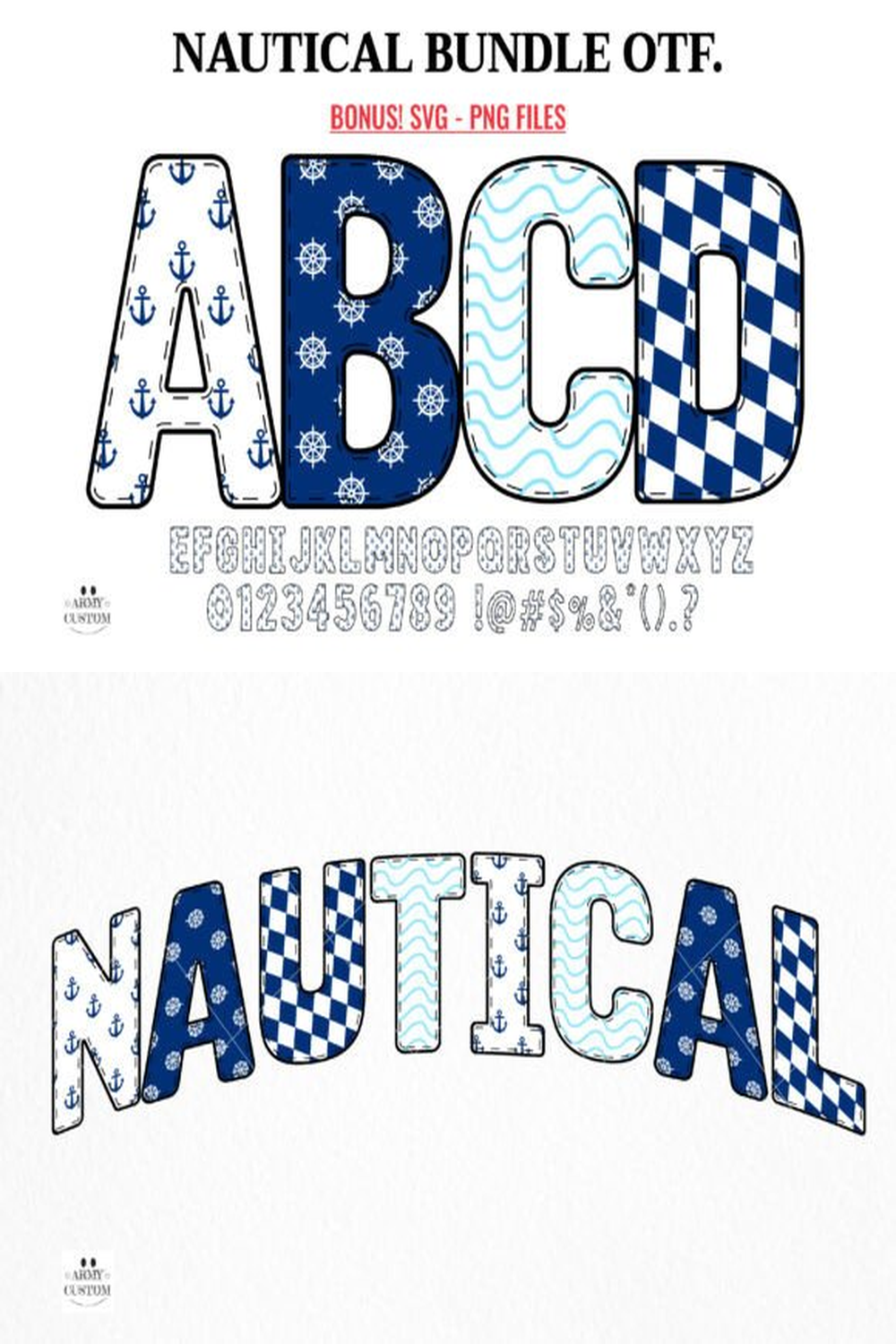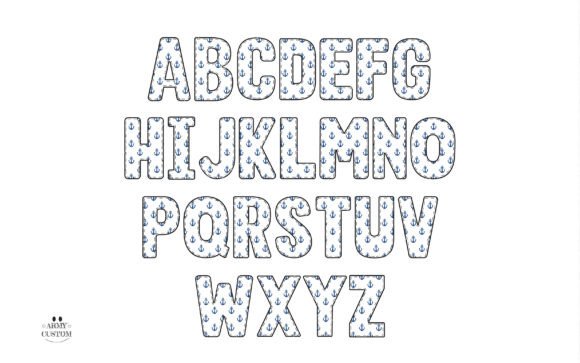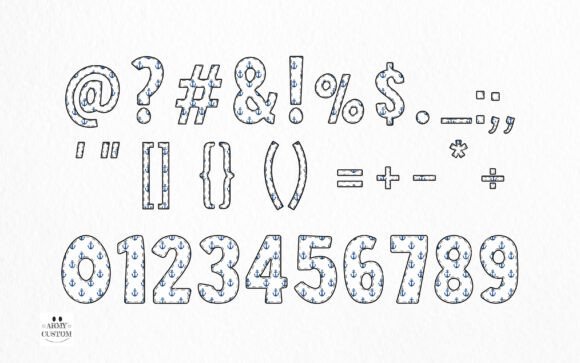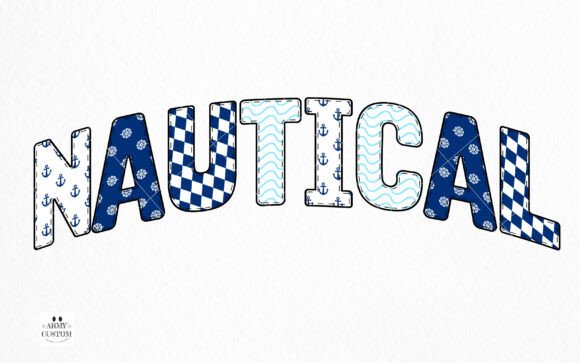
Nautical, Navy Bundle Font
About the Nautical, Navy Bundle Font
Presenting Nautical, Navy Bundle Font, a unique and stylish typeface that will make your work stand out. Dive into the captivating charm of “nautical navy” bundle, a distinctive font crafted to articulate your deepest sentiments with a magical flair. This maritime-inspired typeface designed strikingly, acts as a vehicle for expressing the inexpressible, adding an enchanting touch to your projects. Capture the mysticism of the sea and the boldness of the navy with this alluring font.